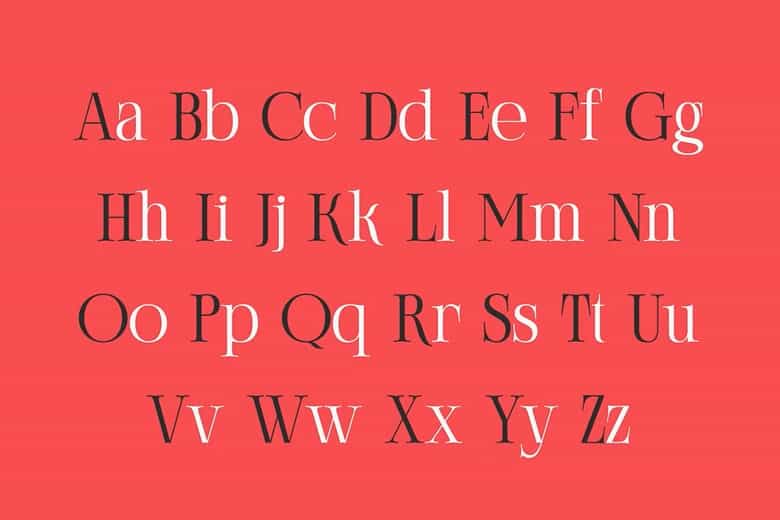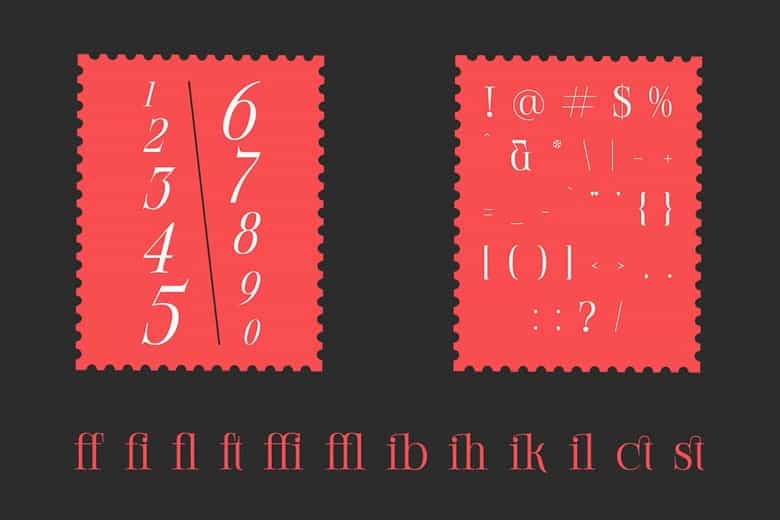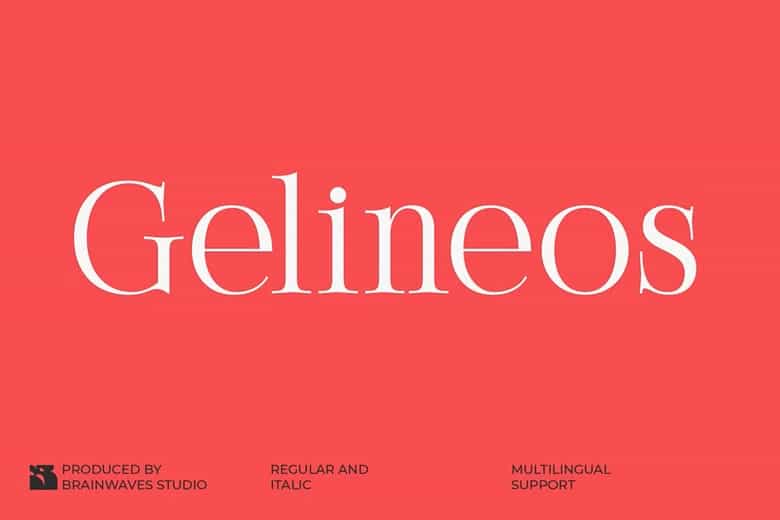
Gelineos is a new serif typeface with some vintage flair and a taste of contemporary glamour that gives your creative work a bit of both class and style! Beautiful high-contrast strokes and elegant letterforms make Gelineos your perfect solution to designs that are hard to ignore and full of elegance. Think of how your brand logo can turn out to be luxurious without breaking a sweat,